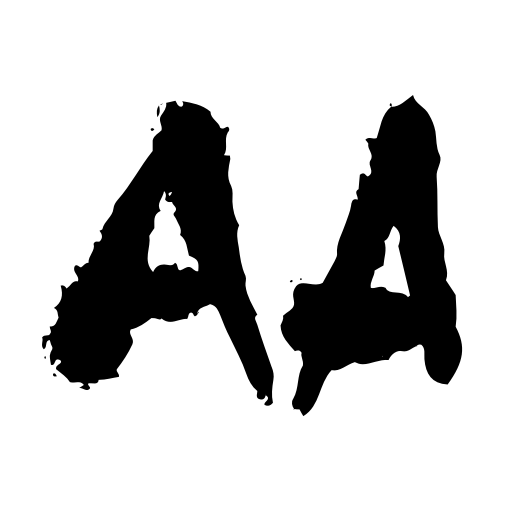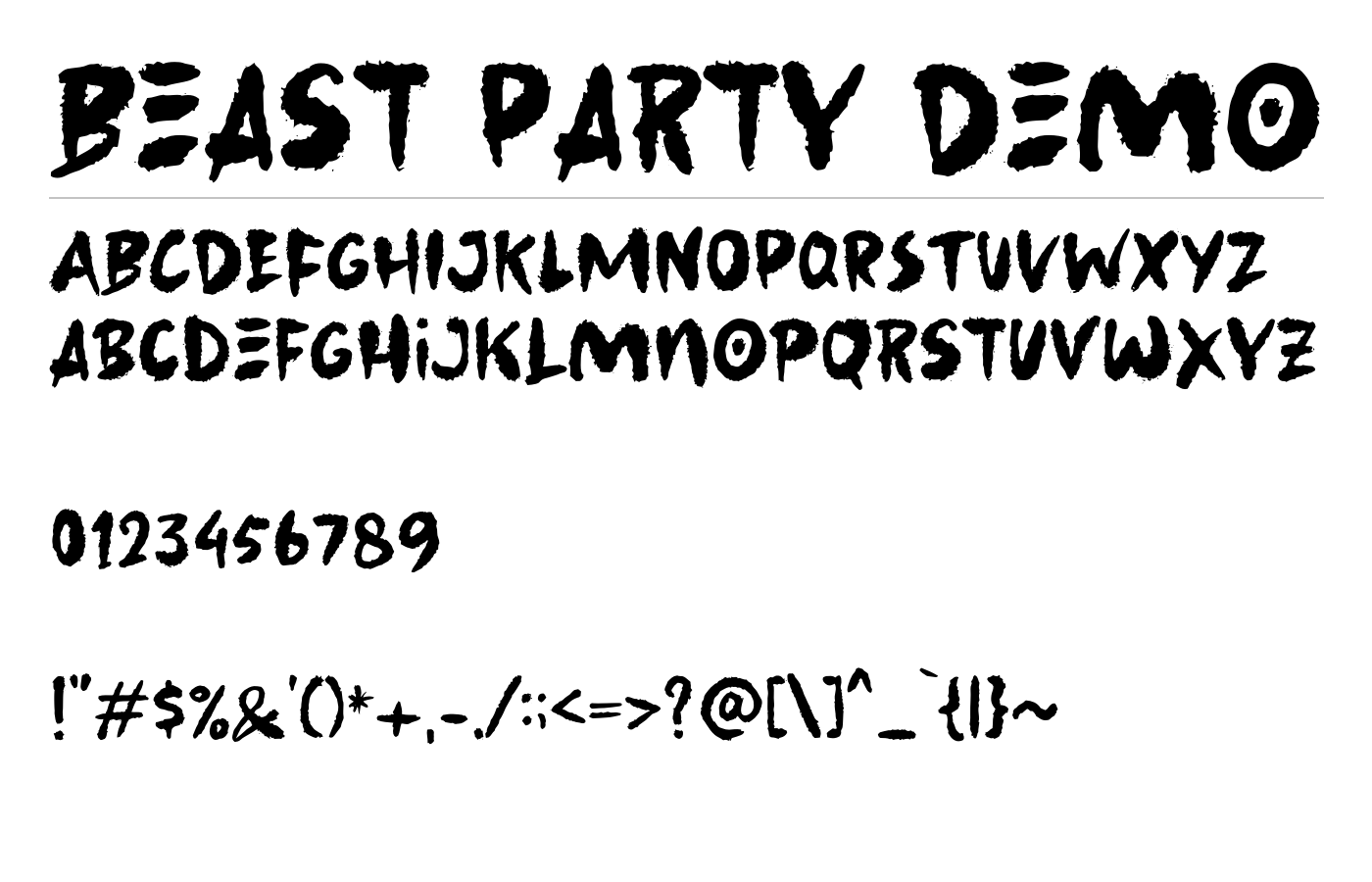
Beast Party Demo is a playful, bold sans serif font with a hand-drawn, rough-edged texture that gives it an energetic and untamed vibe. Its irregular, chunky letterforms and casual brushstroke style make it perfect for creative projects that want to convey fun, excitement, and a slightly wild personality, such as party invitations, posters, or youth-focused branding. This font works best in headlines or display text where its unique character can shine.
Beast Party Demo Font
About Beast Party Demo Font